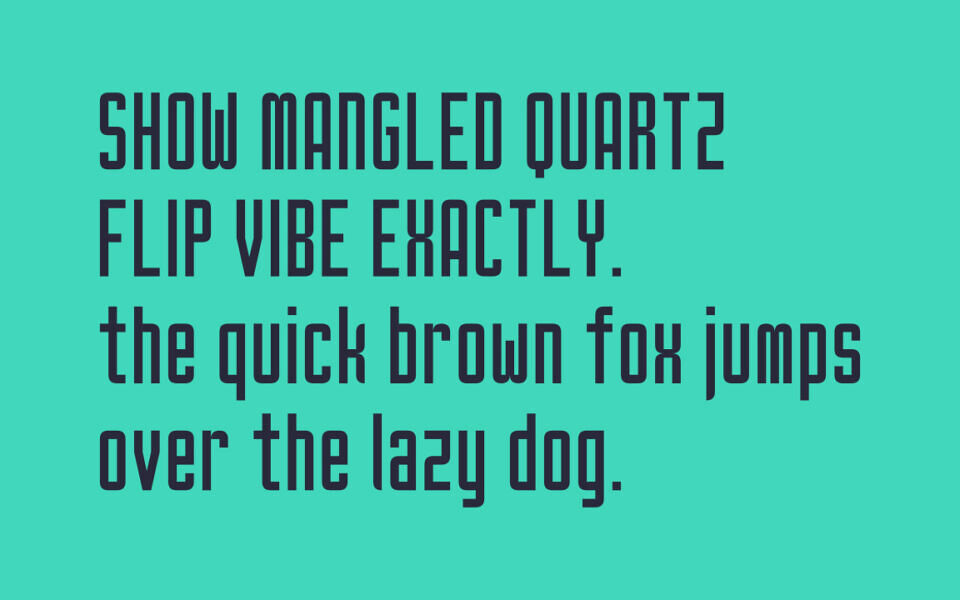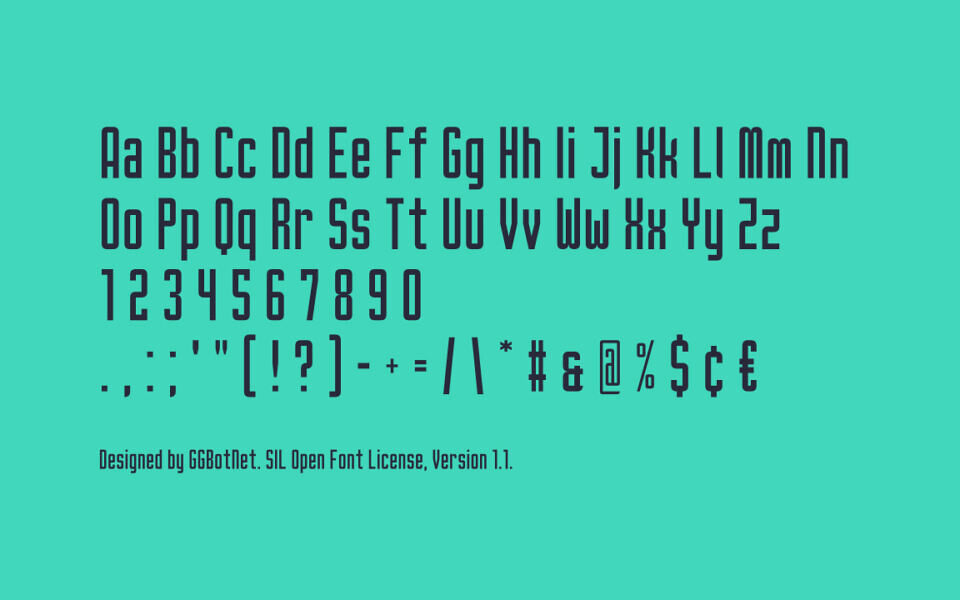
Wiltype Font
Wiltype is a modern, high‑contrast sans‑serif display typeface designed by GGBotNet. With its elongated, narrow proportions and clean geometric forms, this poster-style font exudes elegance and editorial flair—perfect for luxury branding, fashion and beauty campaigns, contemporary print, and bold headlines.